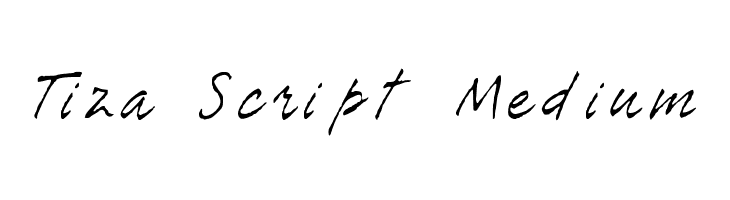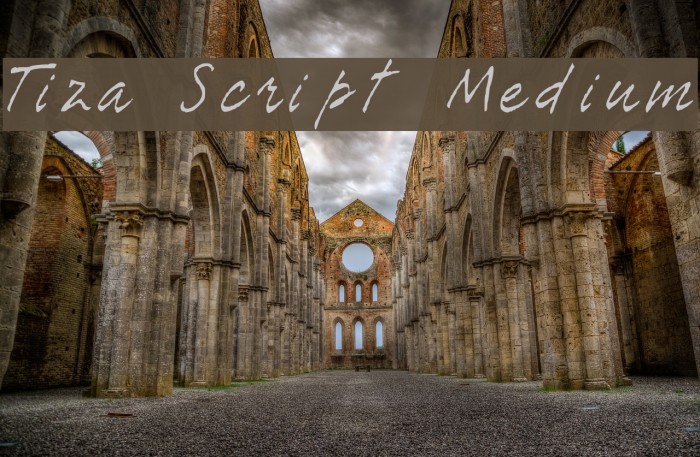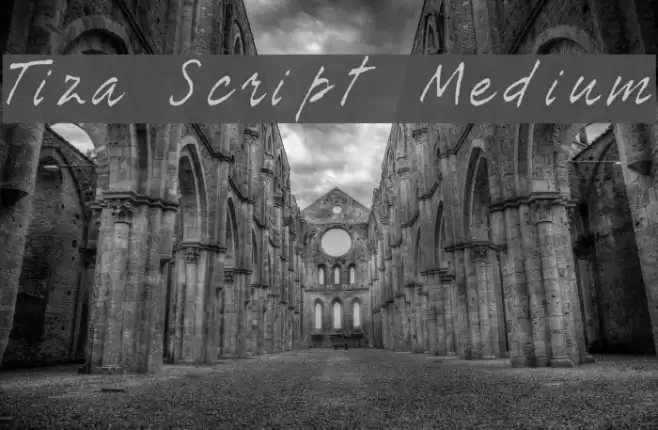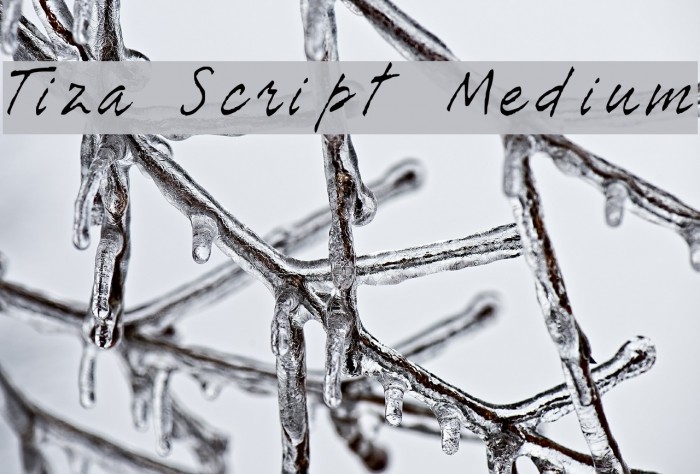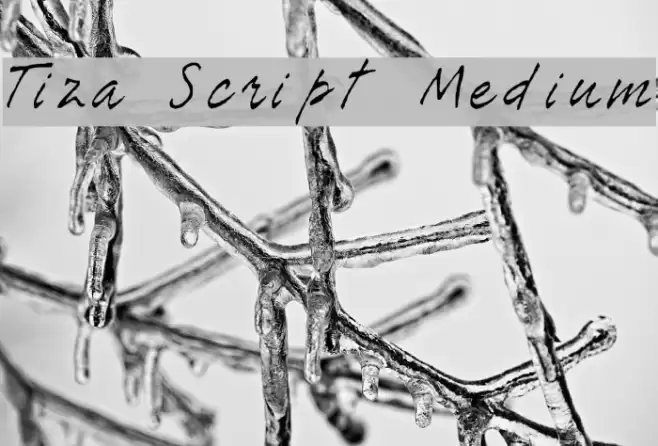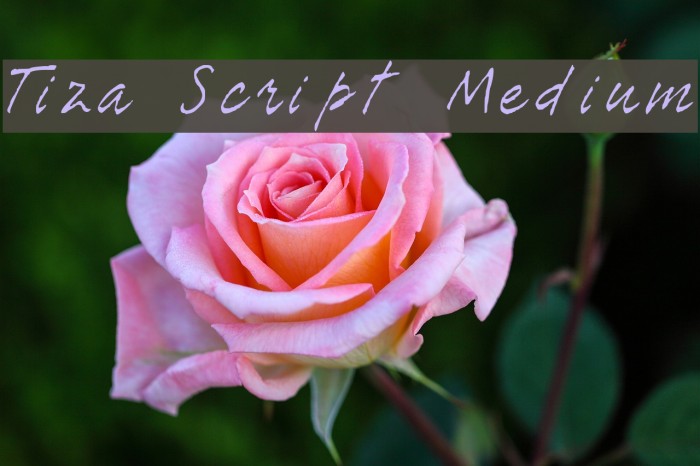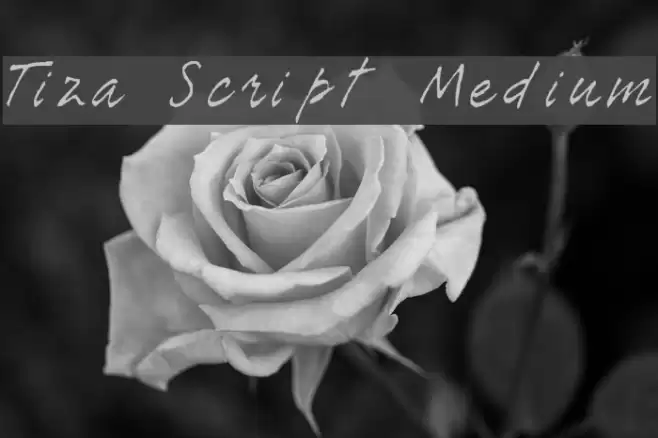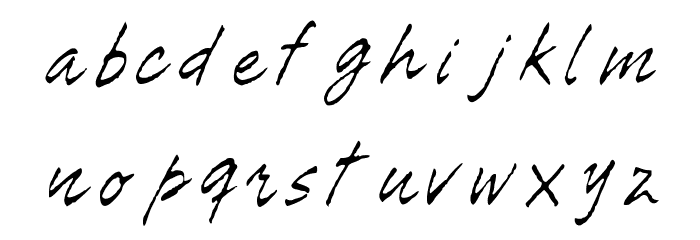
Tiza Script Medium Font
Tiza Script Medium Description
This font exudes a casual yet elegant script style, characterized by its fluid and connected strokes. The letters have a handwritten appearance, with a slight slant that adds a dynamic and lively feel. The uppercase letters are distinct and slightly larger, providing a nice contrast to the more delicate lowercase letters. The numerals and special characters maintain the same flowing style, ensuring consistency throughout. This font is perfect for projects that require a personal touch, such as invitations, greeting cards, or branding materials that aim to convey warmth and approachability.
| Overall Style | Casual, Elegant |
| Use Case | Headlines, Logos, Invitations |
| Proposed Projects | Ideal for invitations, greeting cards, personal branding, and any project needing a personal touch. |